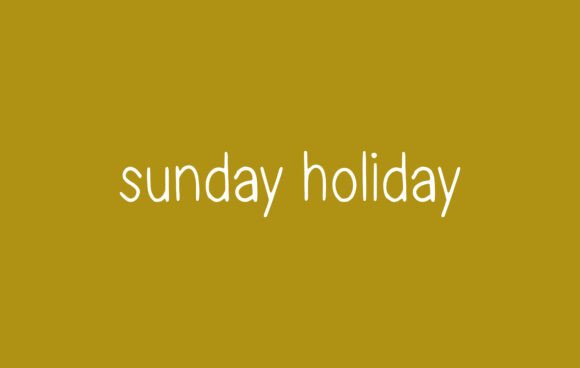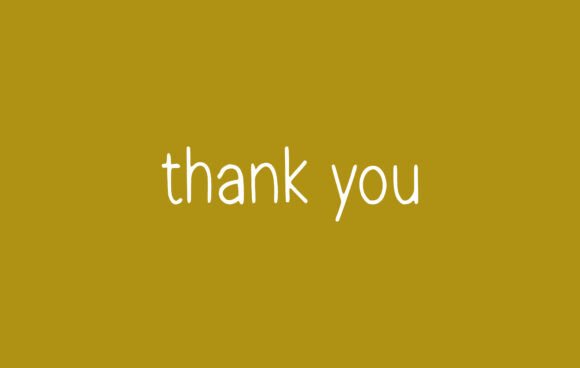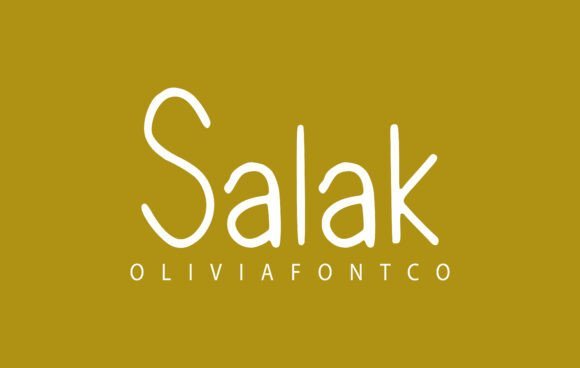
Introduction to Salak Font
Salak font is an authentic handwritten font with a romantic touch.
Why Choose Salak Font?
Salak Font offers exceptional quality and versatility, making it a valuable addition to your design toolkit. Whether you’re creating for personal projects or commercial use, Salak Font delivers professional results.